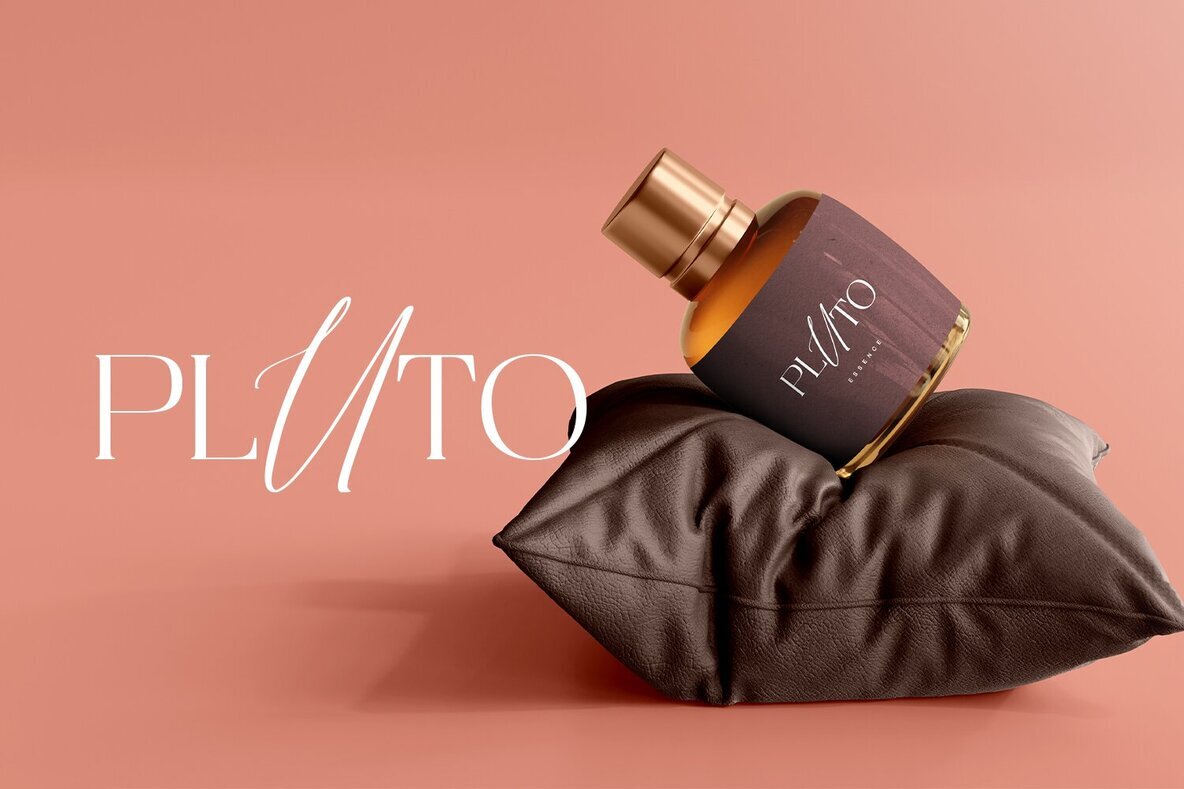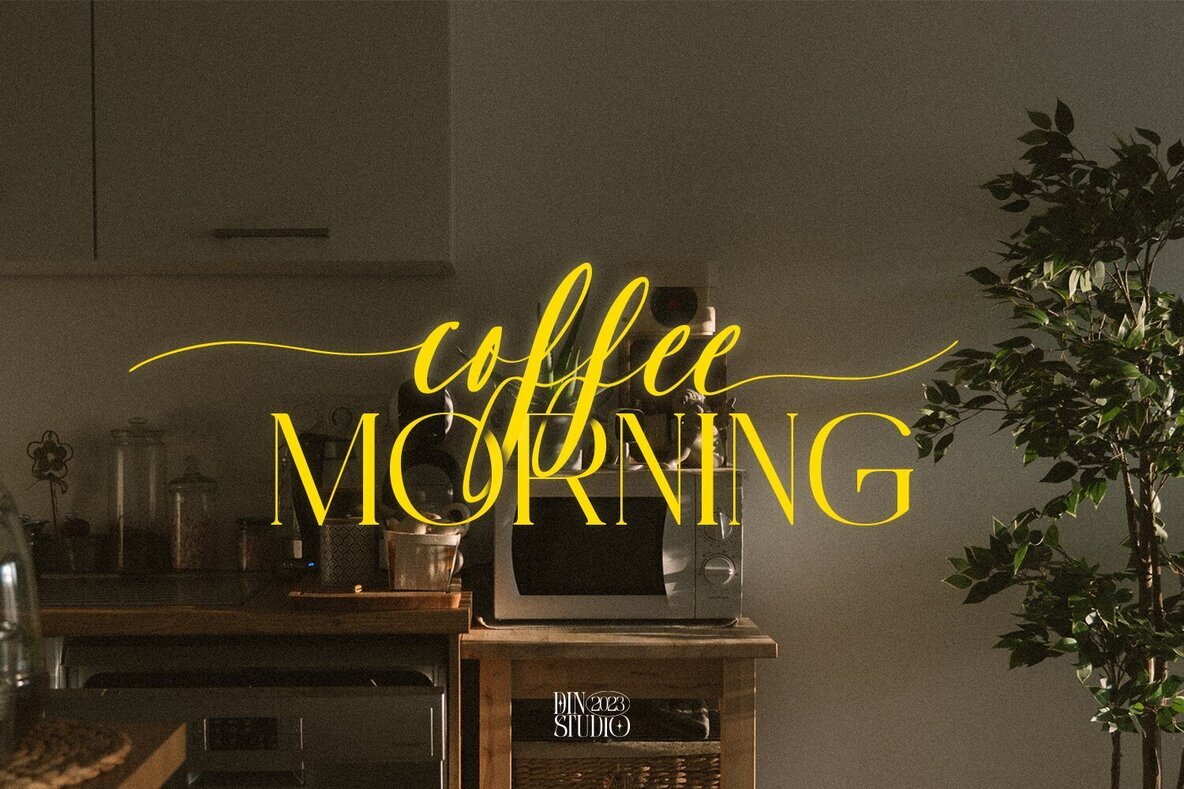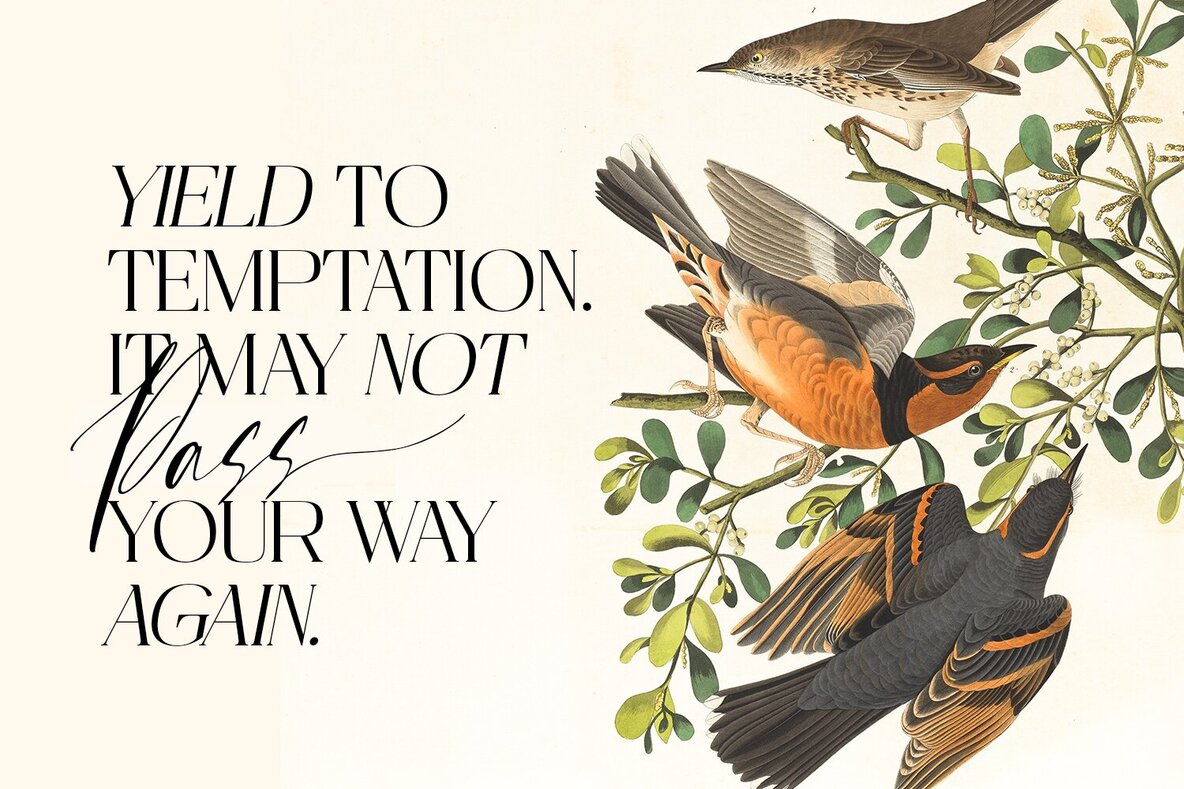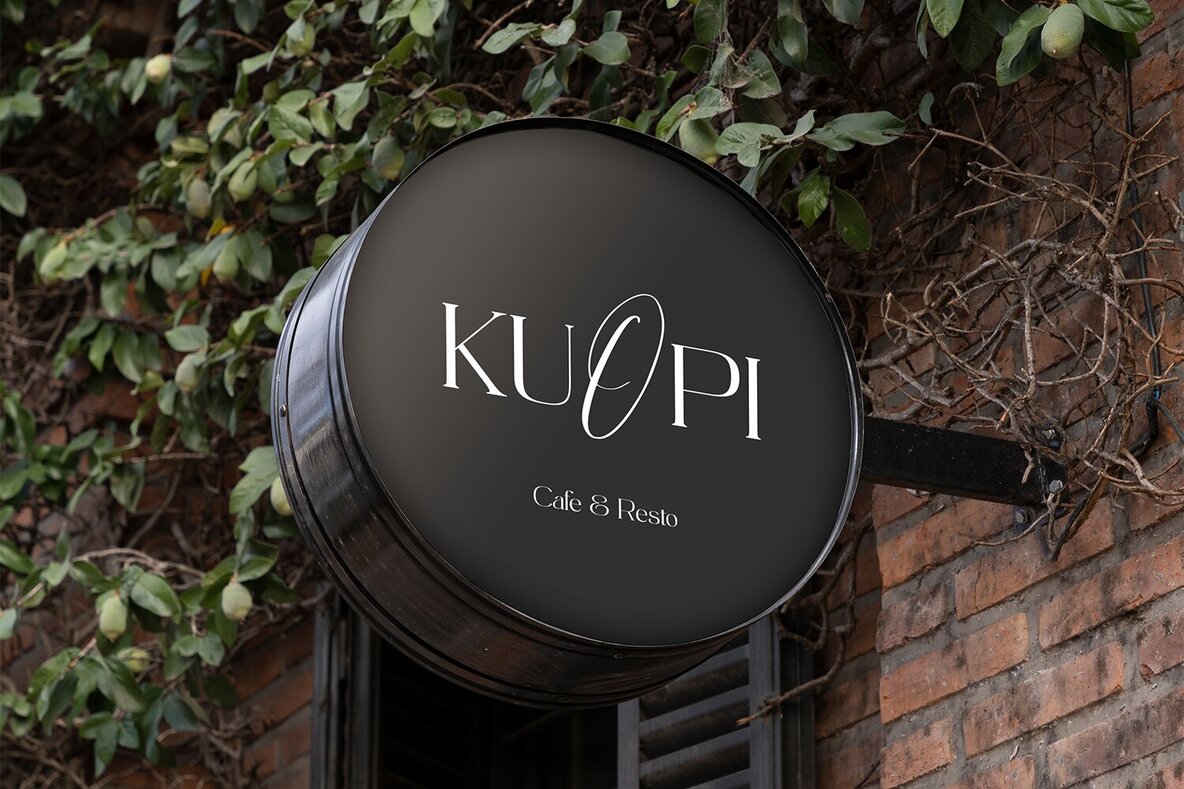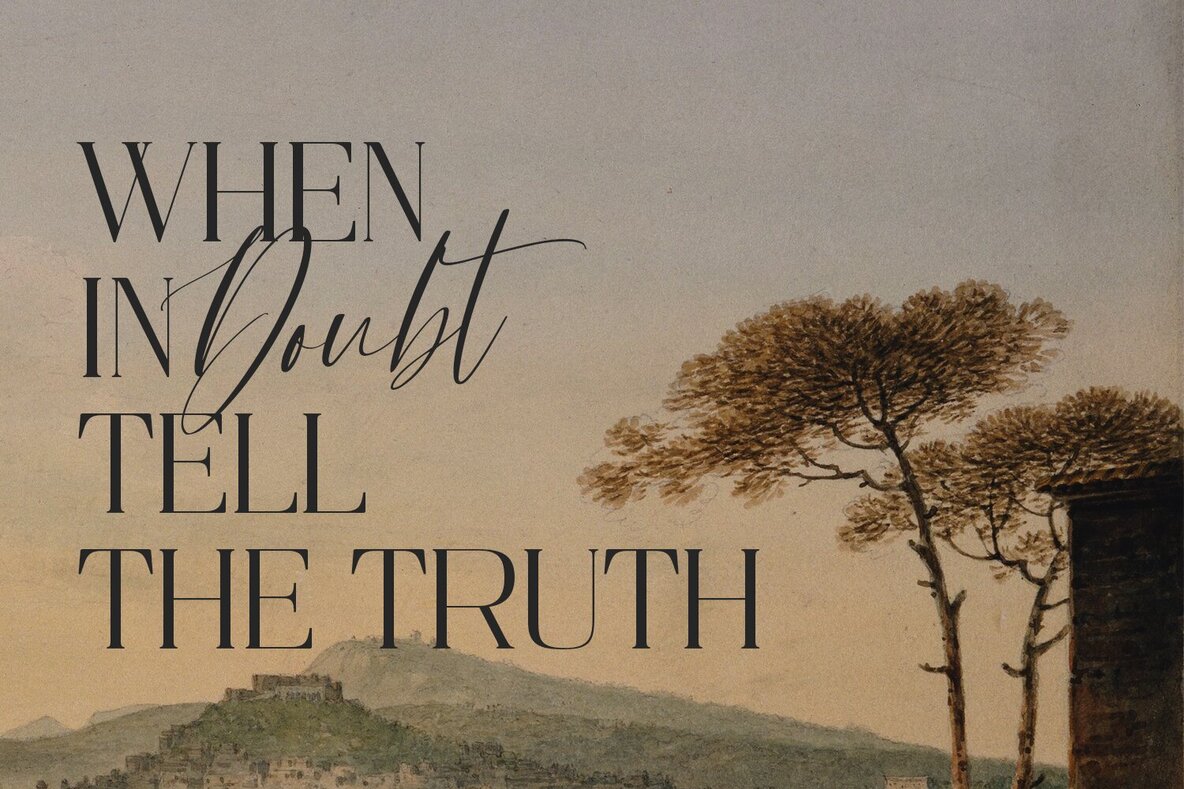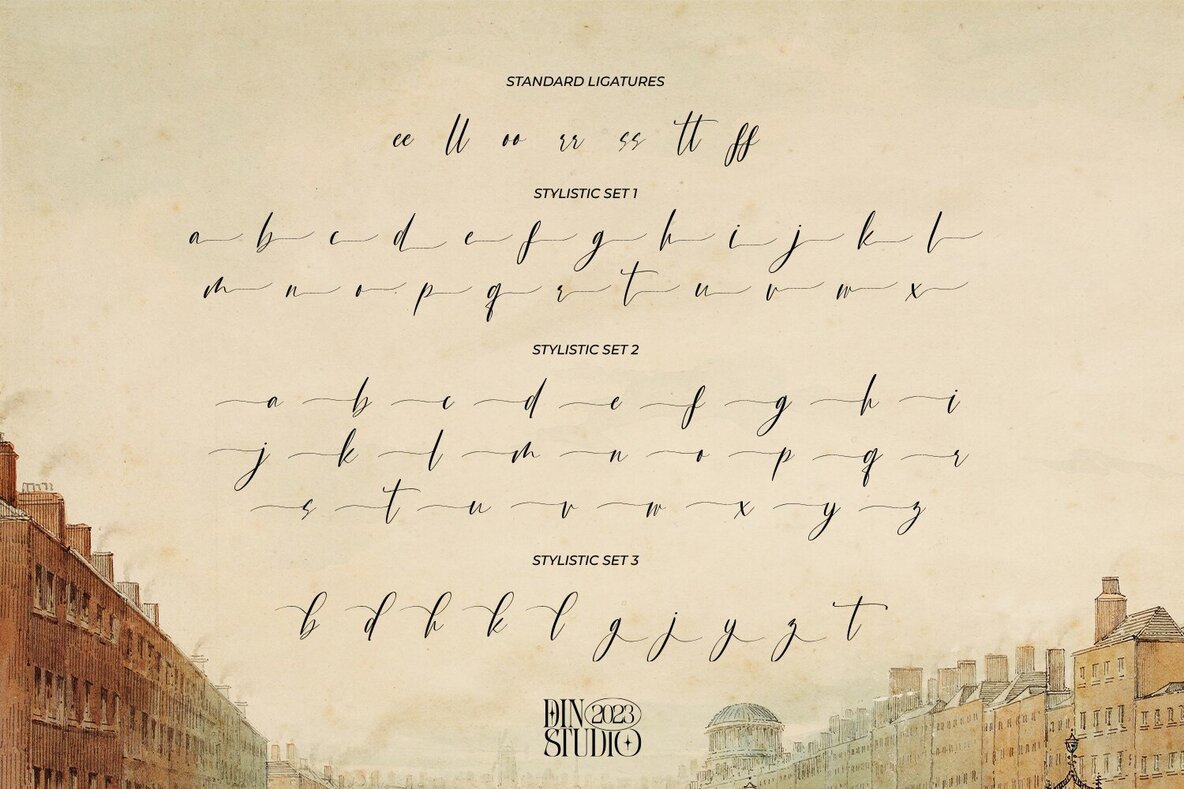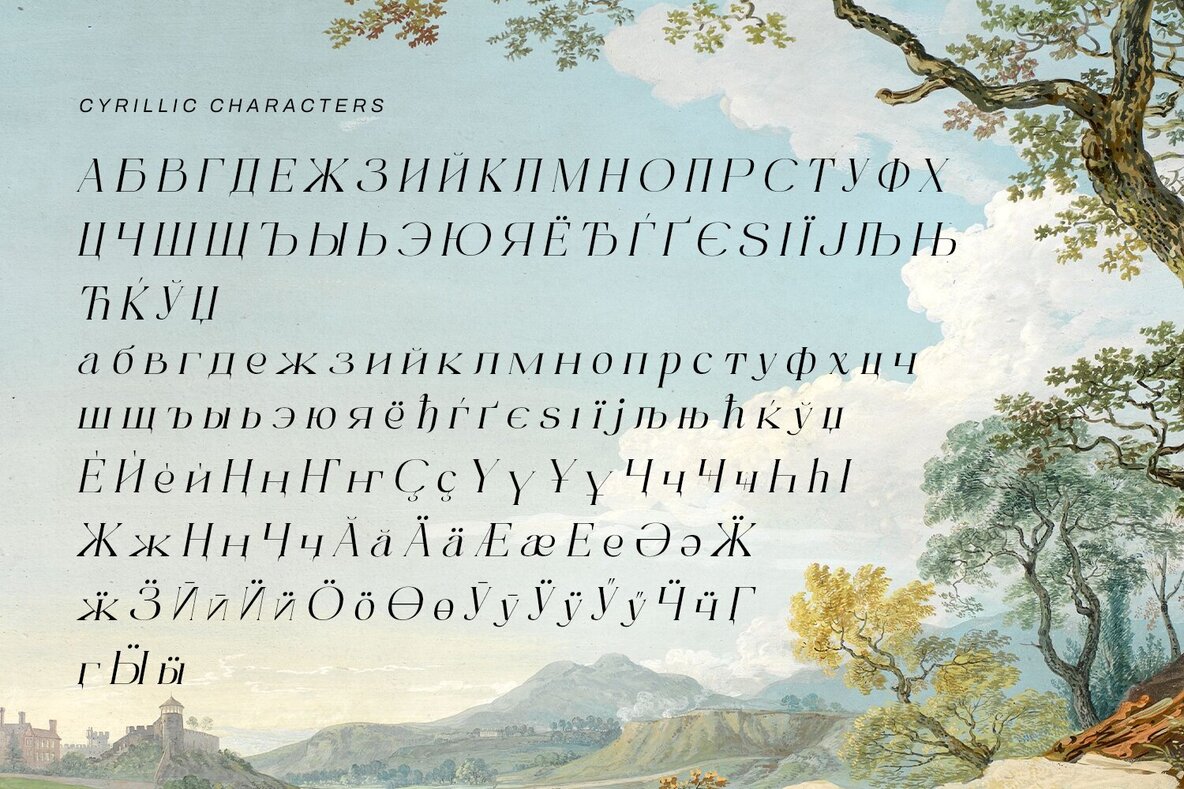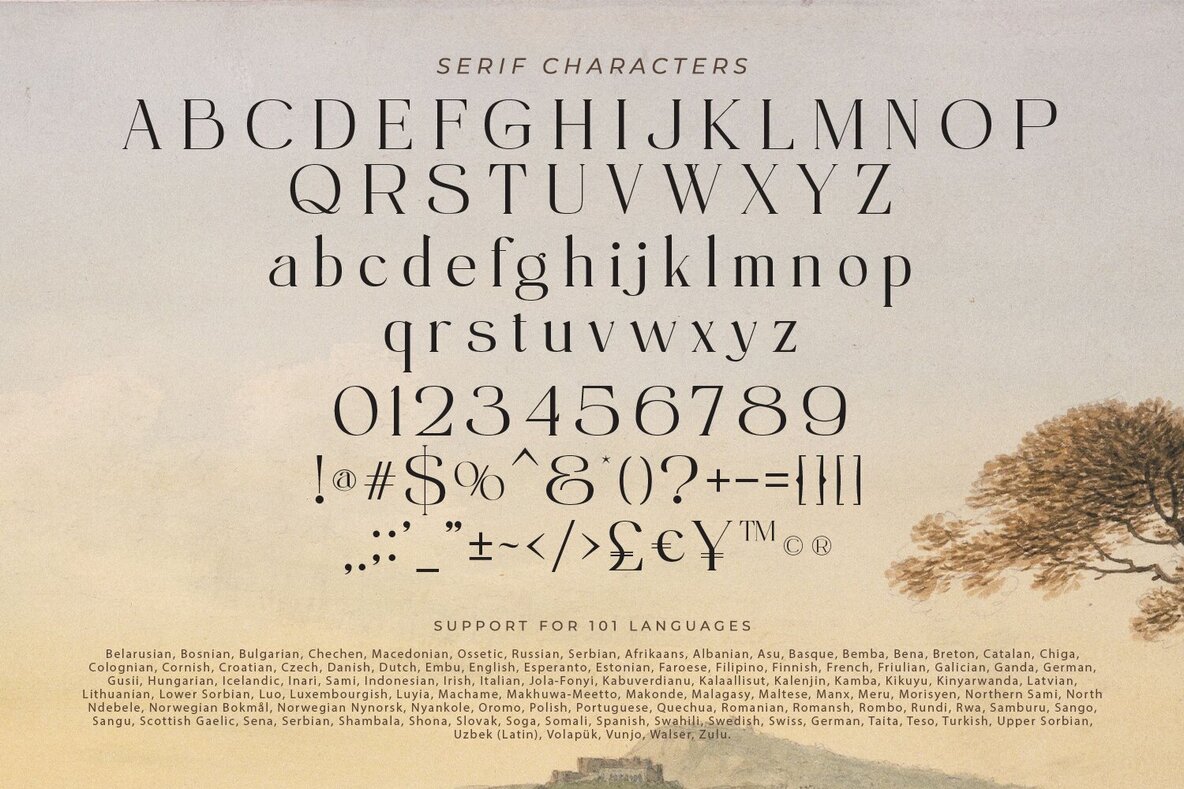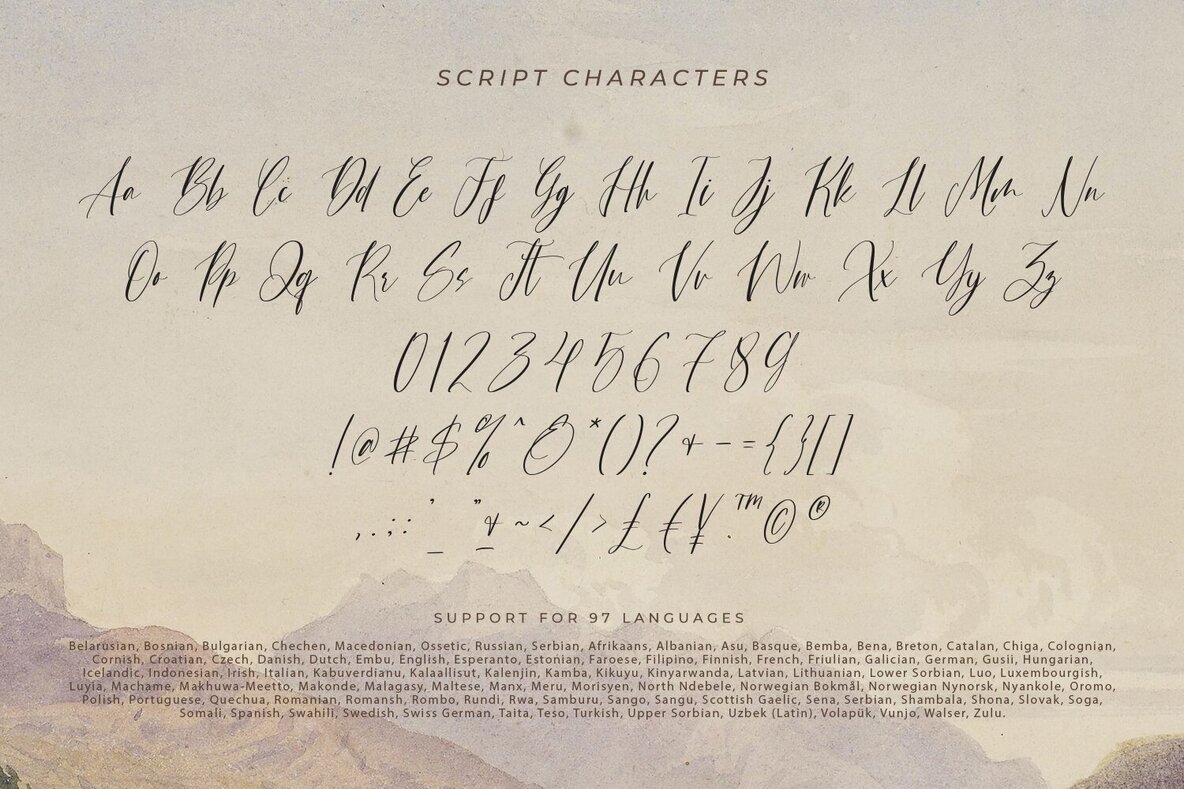
Sunset Imaginary Font
Sunset Imaginary offers a captivating typographic experience with its dynamic duo of fonts, blending the charm of a handwritten style with the elegance of a serif typeface. The handwritten font is carefully designed with intricately crafted letterforms that seamlessly connect, creating a flowing, cohesive script. This design exudes warmth and authenticity, bringing a hand-penned feel to every project. The fluidity and rhythm introduced by the connected letters enhance the visual appeal, adding a personal touch to any design.
The accompanying serif typeface introduces stability and sophistication. With its classic characteristics and balanced proportions, this serif font provides a polished, timeless look. The combination of these fonts in Sunset Imaginary offers a versatile typographic palette ideal for creating striking contrasts and establishing a clear hierarchy in your designs.
Features of these fonts include stylistic sets, ligatures, multilingual support, PUA encoding, and comprehensive numerals and punctuation. Sunset Imaginary is well-suited for invitation posters, branding materials, packaging, and editorial layouts, making it perfect for projects that seek a balance of personal touch and timeless elegance.